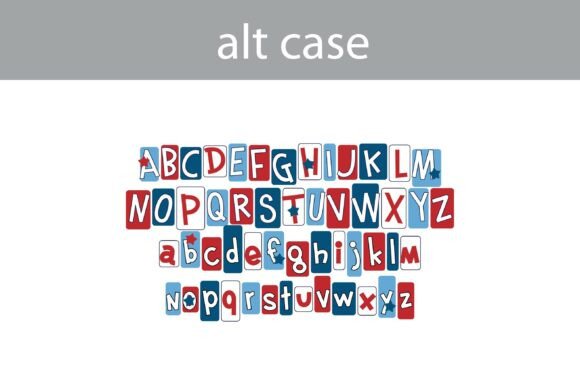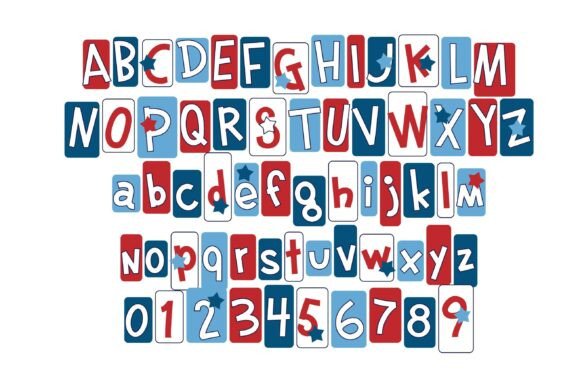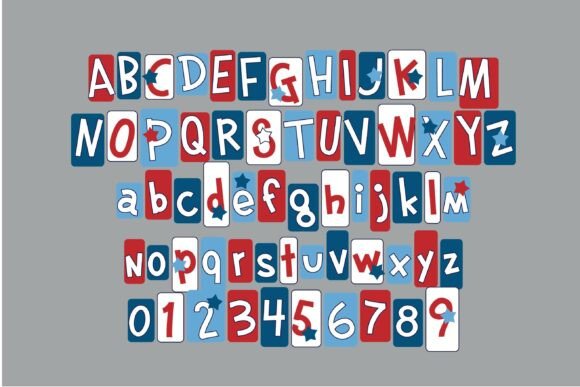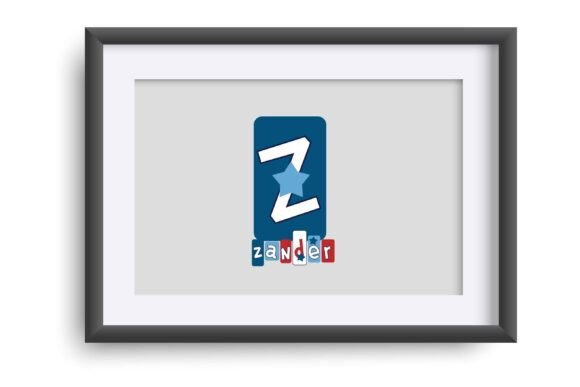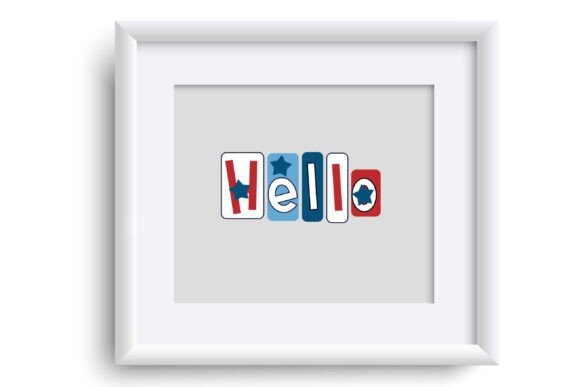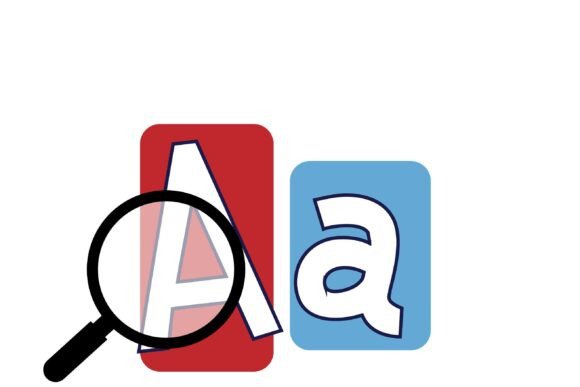
Introducing the Americana Grudge Font: A Whimsical Sans Serif for Your Designs
Are you looking for a unique and eye-catching font to add a touch of personality to your designs? Look no further than the Americana Grudge Font, a full-color font featuring a whimsical sans serif in Americana blocks. This font is perfect for designers and crafters who want to create stunning text logos, signs, and other visual elements that stand out from the crowd.
What Makes the Americana Grudge Font Special?
The Americana Grudge Font is a full-color, OpenType (SVG) font that offers a range of exciting features. One of the most notable features is the alt case of alternate colorings of each letter, which can be accessed through your system or Silhouette’s glyph map. This means that you can easily switch between different colors and styles to create a unique look that suits your design.
With the Americana Grudge Font, the design possibilities are endless. You can create anything from simple text logos to complex, multi-colored designs. The font’s whimsical sans serif style is perfect for a range of projects, from craft designs to commercial branding. Whether you’re a designer, crafter, or DIY enthusiast, this font is sure to inspire your creativity.
Benefits of Using Full-Color SVG Fonts
Full-color SVG fonts like the Americana Grudge Font offer a range of benefits for designers and crafters. They provide a unique and eye-catching way to add personality to your designs, making them stand out from the crowd. They also offer a high level of flexibility, allowing you to experiment with different colors and styles to find the perfect look for your project.
Tips for Getting the Most Out of the Americana Grudge Font
To get the most out of the Americana Grudge Font, experiment with different colors and styles to find the perfect look for your project. Use the alt case of alternate colorings to add an extra layer of interest to your design. Don’t be afraid to try out new and unusual combinations – the Americana Grudge Font is designed to be versatile and adaptable.
The Americana Grudge Font is a unique and exciting addition to any designer’s toolkit. With its whimsical sans serif style, full-color features, and compatibility with a range of popular programs, it’s the perfect choice for anyone looking to add a touch of personality to their designs. Whether you’re a seasoned designer or just starting out, this font is sure to inspire your creativity and help you create stunning visual elements that stand out from the crowd.